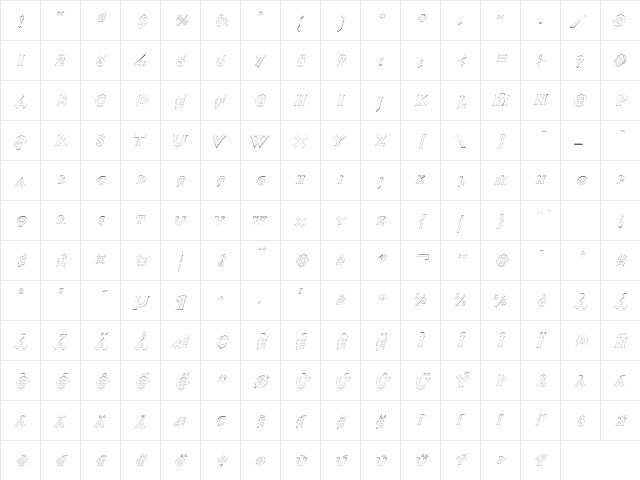
AvalonQuestOutline BlackItalic
Design Context for AvalonQuestOutline Typeface
AvalonQuestOutline brings ornamental detail and strong personality to headlines and identities, where visual impact matters more than quiet functionality. The slanted form adds forward momentum and visual energy.
Font Pairing: Pair with a clean neutral sans-serif for body copy to let AvalonQuestOutline's character lead without overwhelming the composition.
Pro Tip: Use AvalonQuestOutline exclusively at display sizes — it was designed to be seen, not read at length. Let a neutral companion handle body copy.